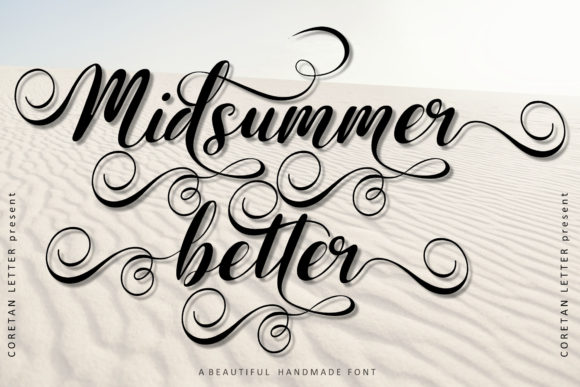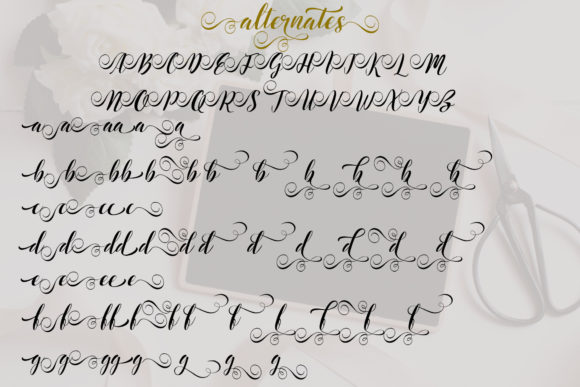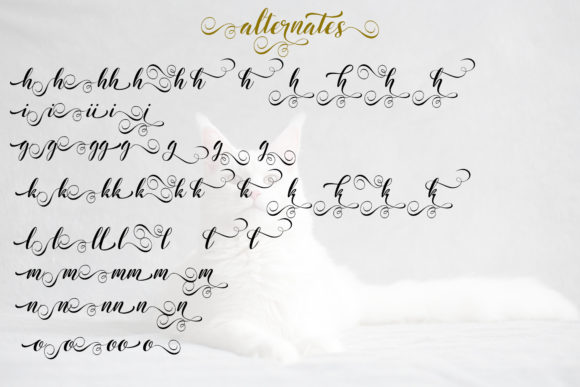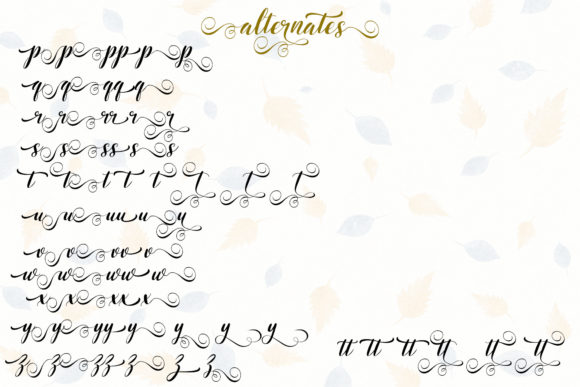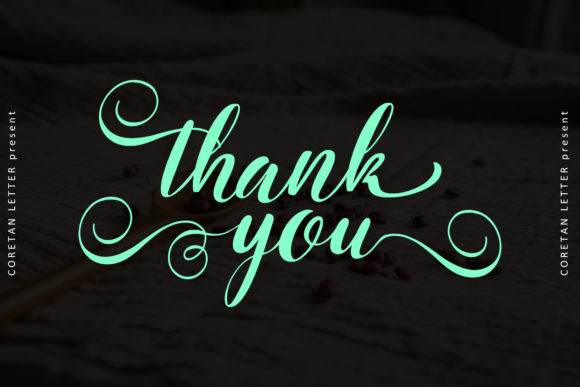
Midsummer Better Font
About Midsummer Better Font
Midsummer Better is an elegant script font with a contemporary atmosphere and impeccable form, inspired by timeless classic calligraphy.